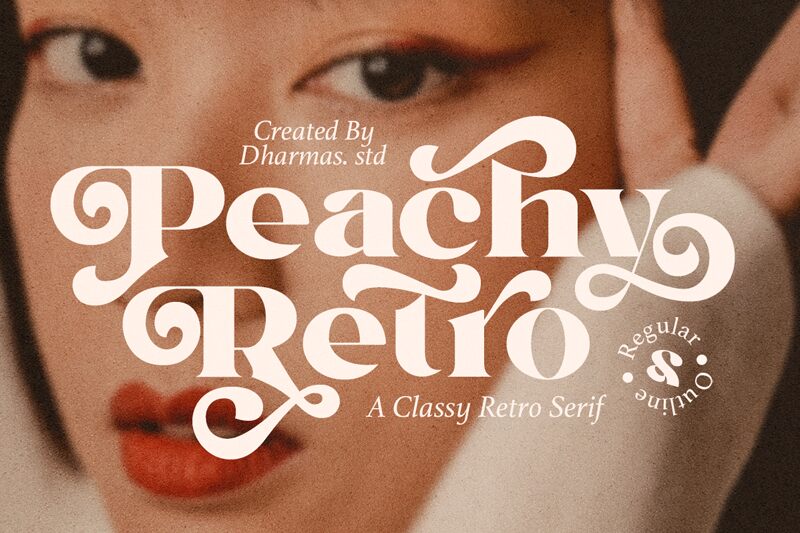
Peachy Retro DEMO Regular
Peachy Retro font by Dharmas Studio is a captivating display font radiating vintage charm. Boasting bold weight and an expanded style, this retro font offers a delightful nod to nostalgic design eras, making it perfect for those seeking to infuse projects with timeless appeal.
Its distinctive curves and playful flair make Peachy Retro ideal for eye-catching posters, creative branding, and retro-inspired invitations. As a standout choice in the world of typography, this free font invites designers to explore its unique aesthetic for both personal and commercial use.